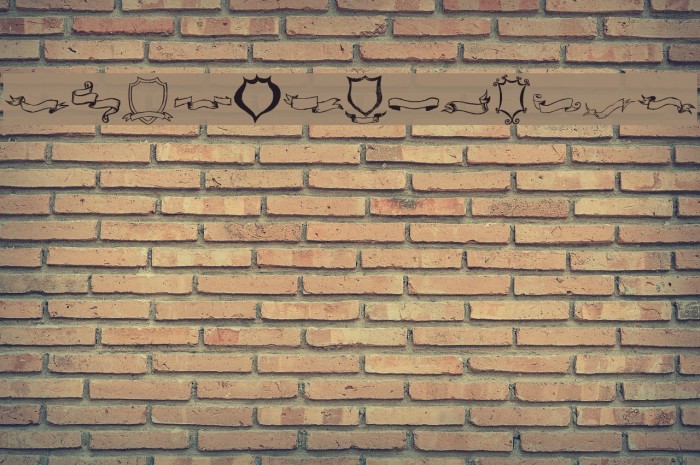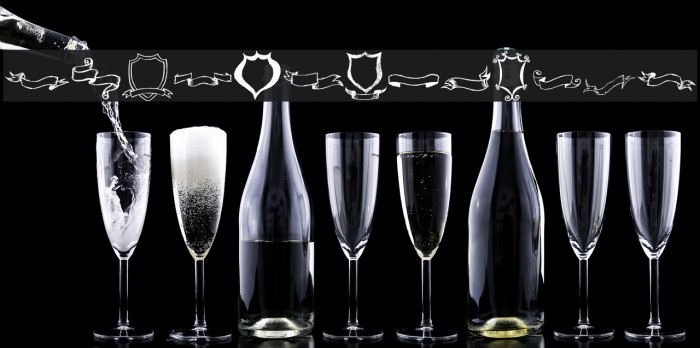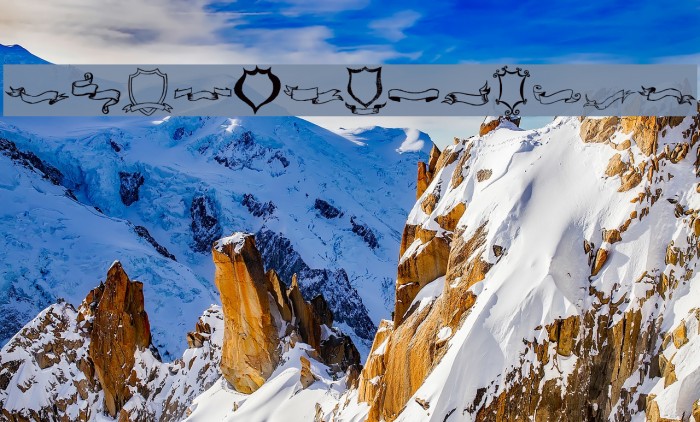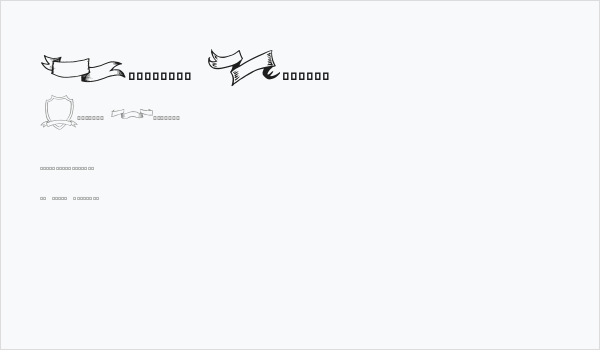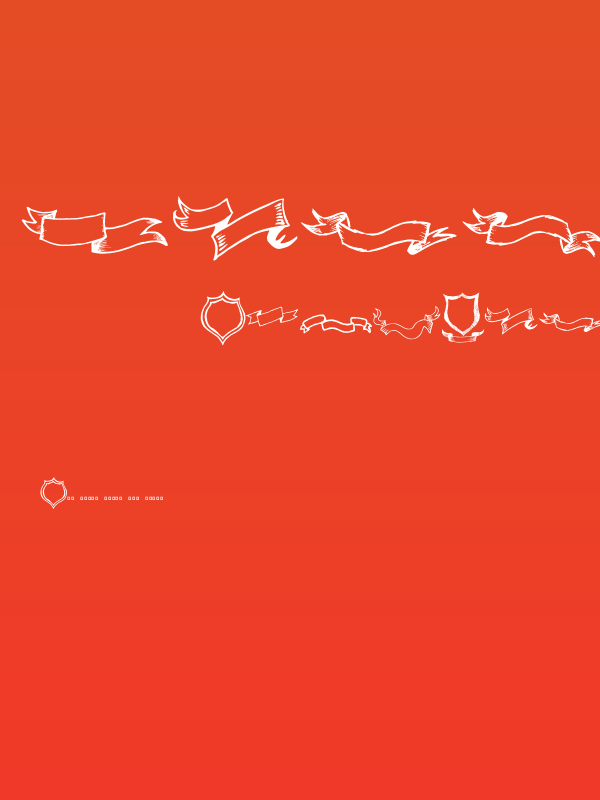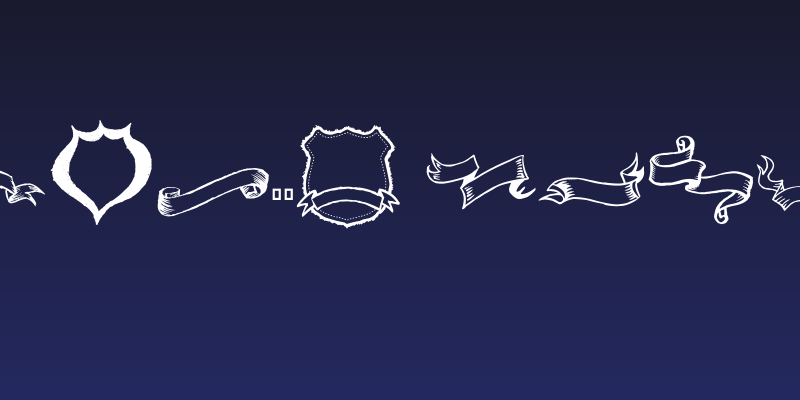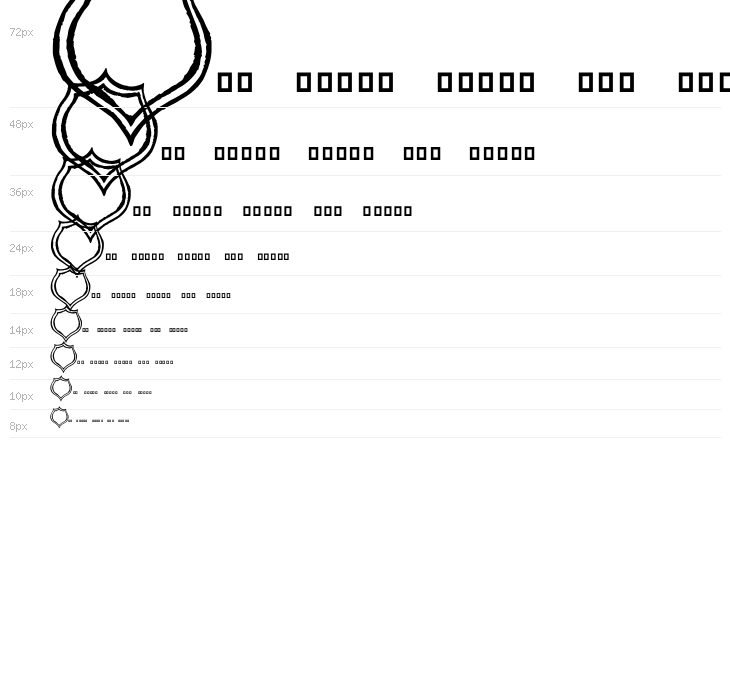
Frames'n Riboons Font
Frames'n Riboons Description
This is not a valid font. The image contains decorative frames and ribbons, which are ornamental elements rather than a typeface. These elements are typically used for embellishing designs rather than for typesetting text. The frames and ribbons are intricately designed, featuring various shapes and styles that can be used to add a classic or vintage touch to graphic projects.
| Overall Style | Vintage, Decorative |
| Use Case | Decorative elements for design embellishment. |
| Proposed Projects | Ideal for invitations, certificates, or any design requiring ornamental borders. |